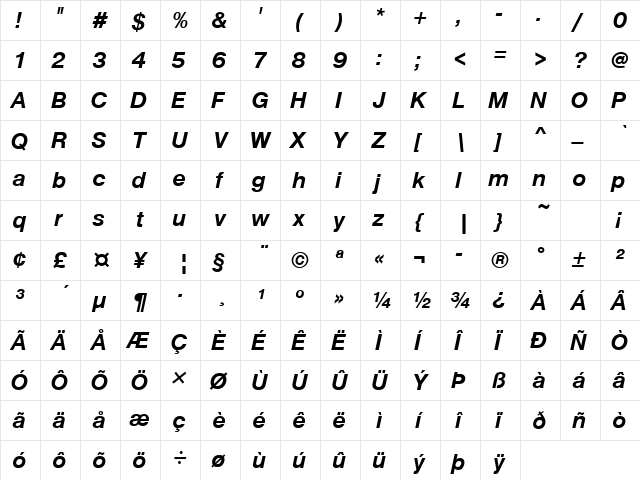
Nimbus Sans Becker P Bold Italic
Design Context for Nimbus Sans Becker P Typeface
Nimbus Sans Becker P is a composed and adaptable typeface that performs quietly and consistently across a wide range of design contexts. The dynamic lean of this cut emphasises speed and emphasis in any layout. Its bold stroke weight gives it real presence on the page.
Pro Tip: Use Nimbus Sans Becker P for emphasis, pull quotes, and subheadings where its slanted energy can add rhythm to the layout.